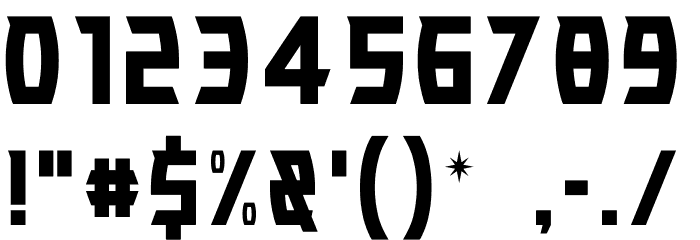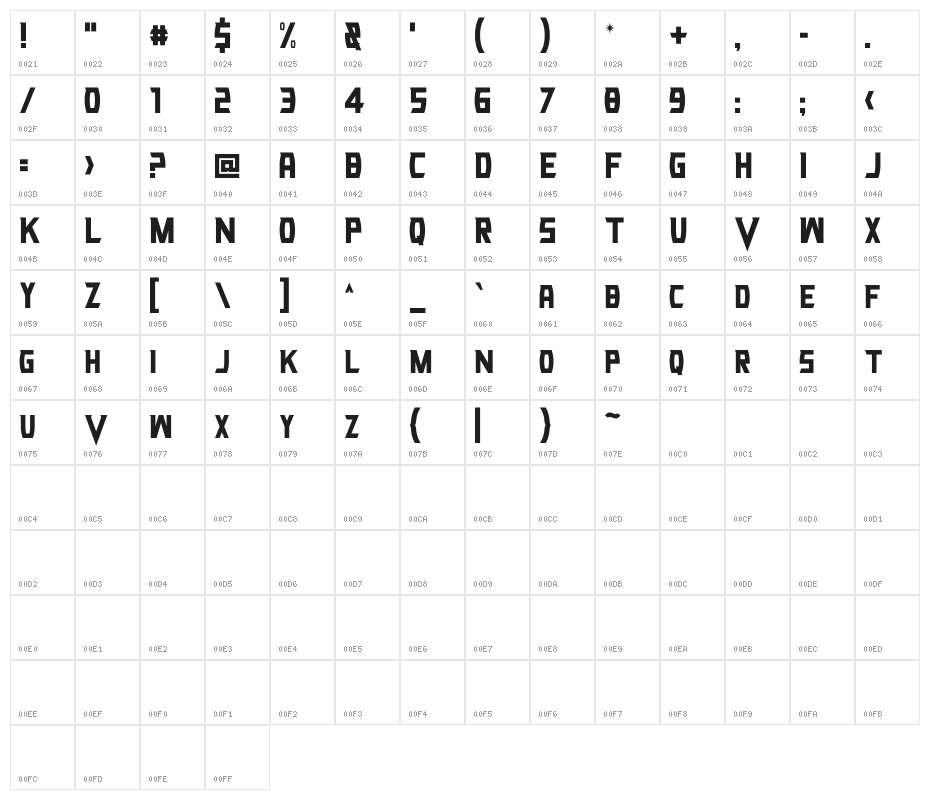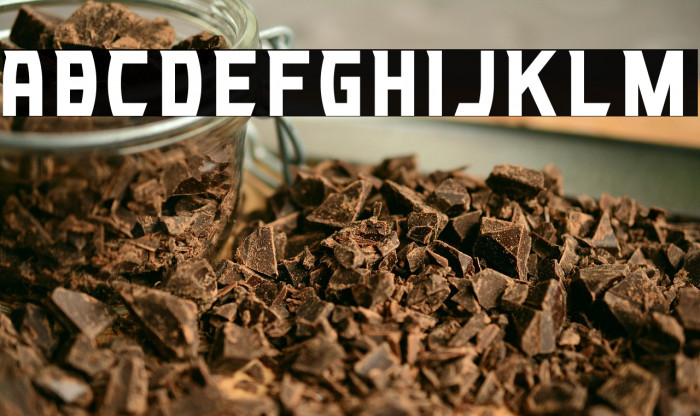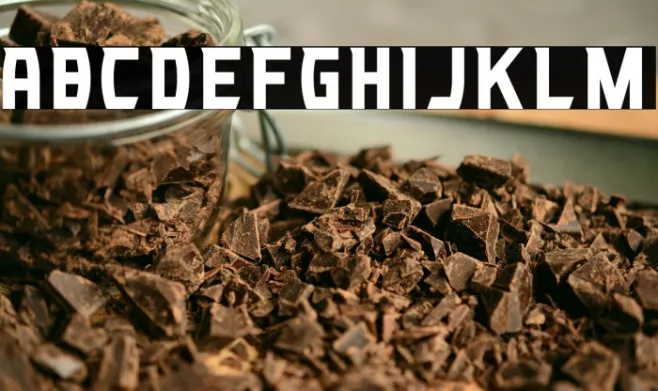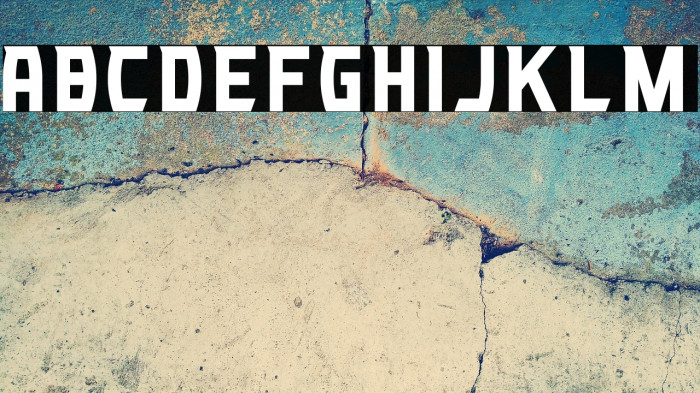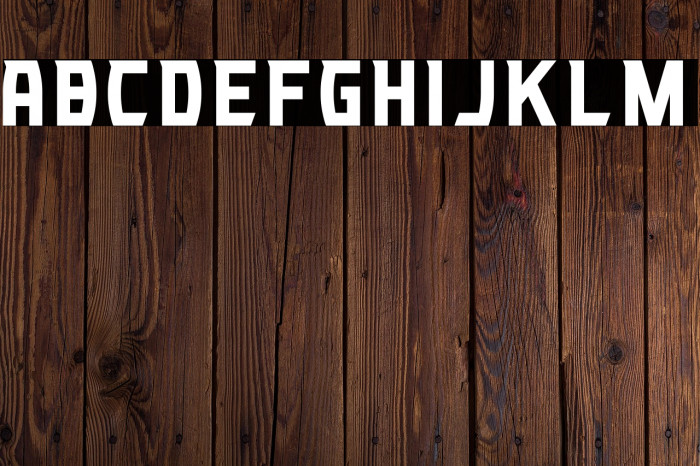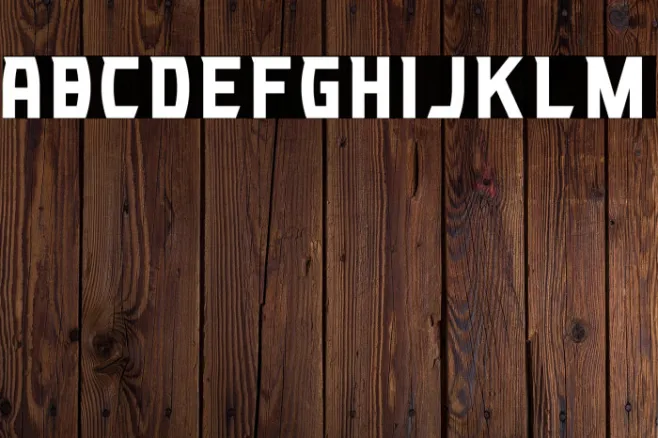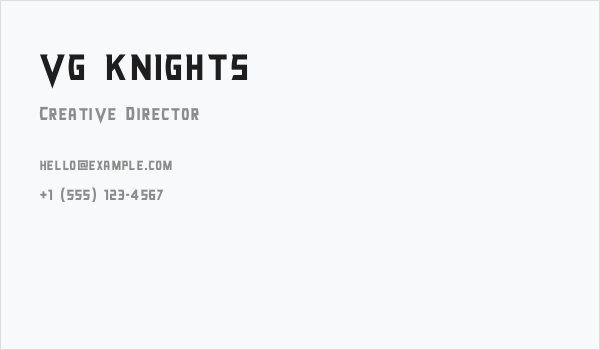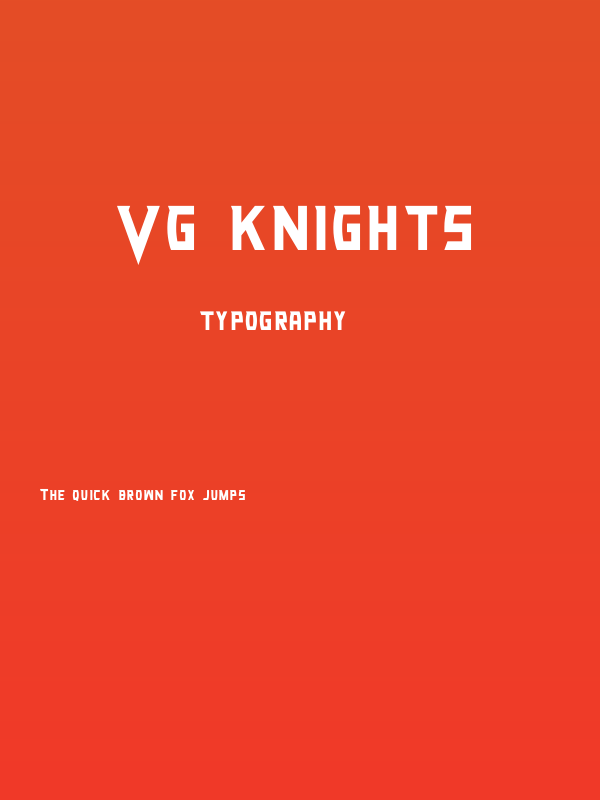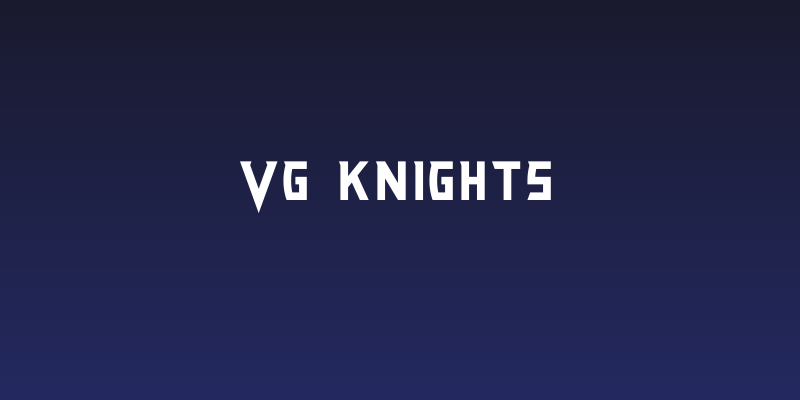
VG KNIGHTS Font
VG KNIGHTS Description
This font features a bold, angular design with a strong geometric influence, characterized by sharp edges and a blocky appearance. The uppercase letters are particularly striking, with a uniform height and width that create a cohesive and impactful look. The numbers and special characters maintain this bold style, ensuring consistency across all elements. The font's design is reminiscent of futuristic or sci-fi themes, making it suitable for projects that require a modern and edgy aesthetic. Its boldness and unique style make it stand out, while the clear and legible characters ensure readability.
| Proposed Projects | Ideal for sci-fi themed posters, video game titles, branding for tech companies, and any project requiring a modern, bold aesthetic. |